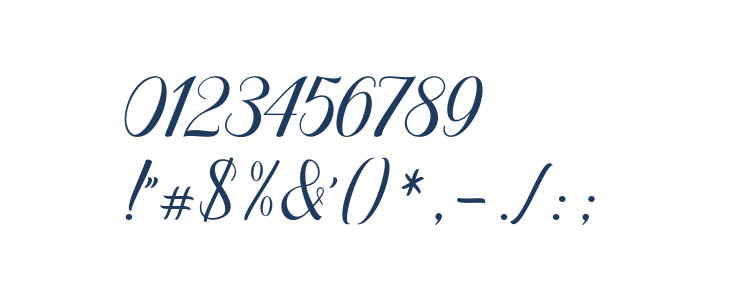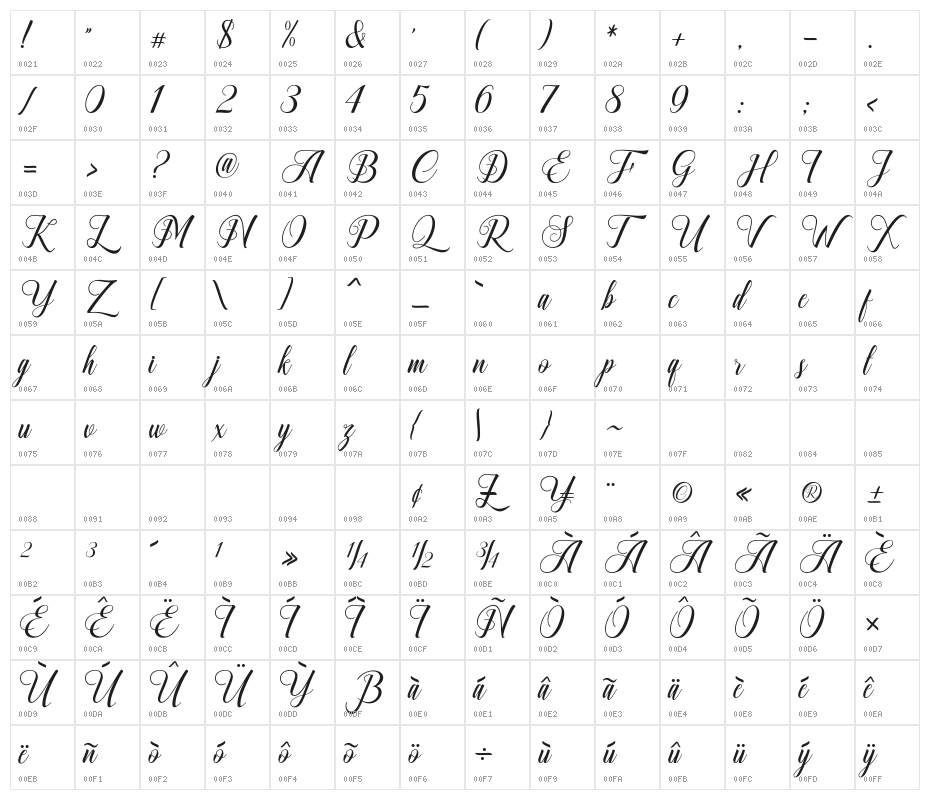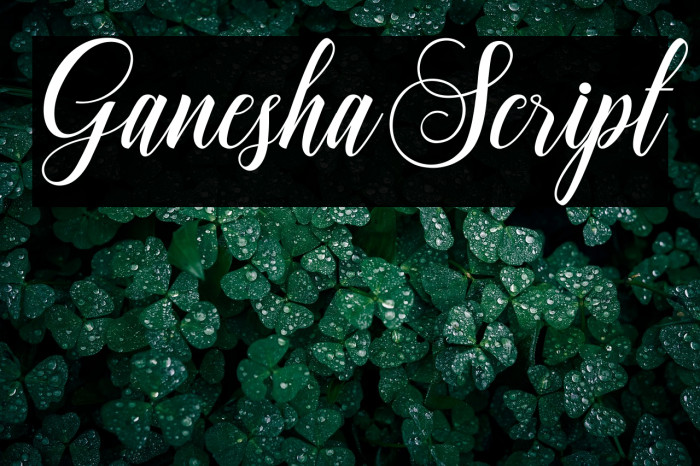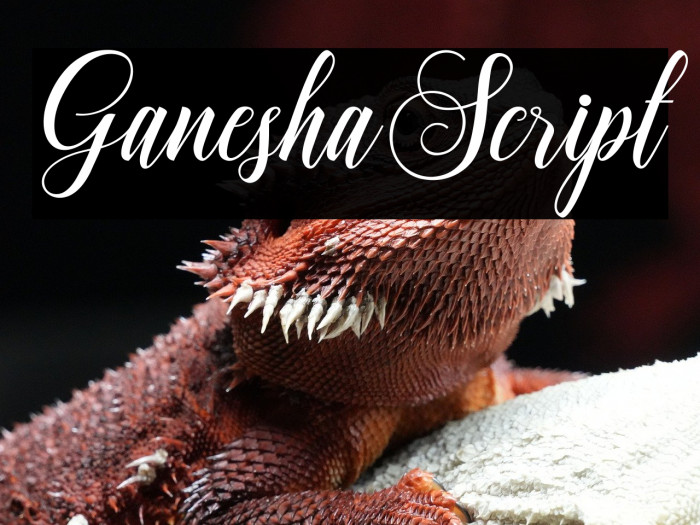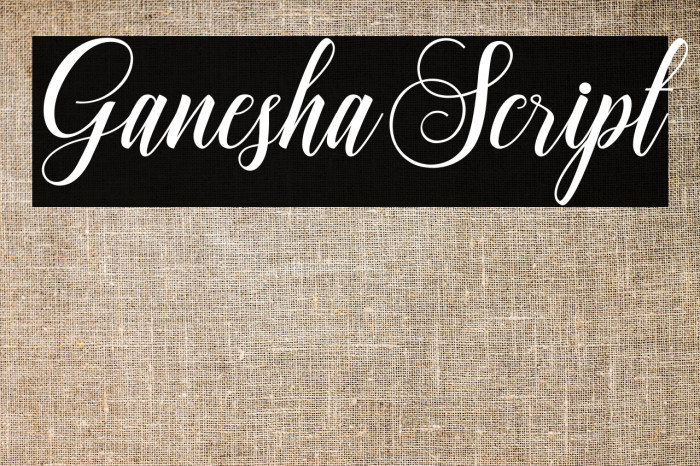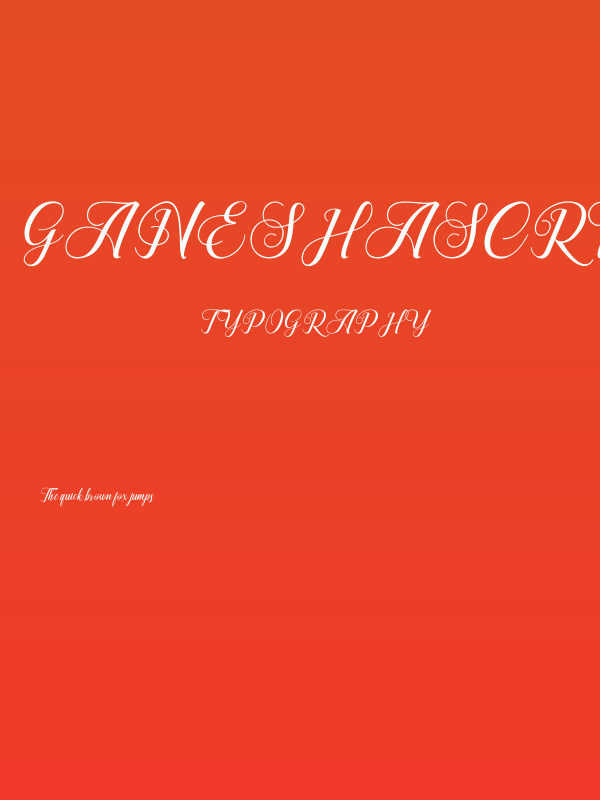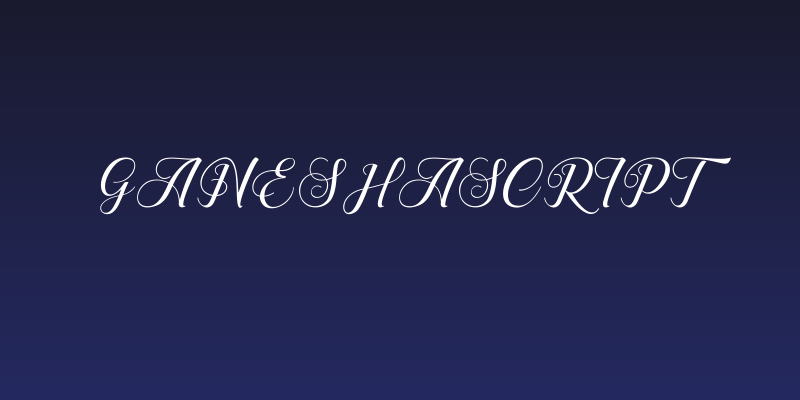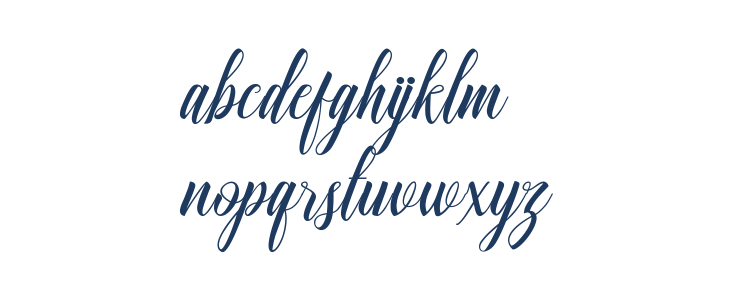
GaneshaScript Font
GaneshaScript Description
This elegant script font features a flowing, cursive style with graceful, sweeping curves and a sophisticated appearance. The uppercase letters are ornate and decorative, while the lowercase letters maintain a smooth, connected flow, making it ideal for formal invitations or branding that requires a touch of elegance. The numerals are stylishly integrated with the overall script design, and the special characters are crafted with the same attention to detail, ensuring consistency throughout. The font's high contrast between thick and thin strokes adds to its refined and polished look, making it suitable for projects that demand a luxurious and classic feel.
Proposed ProjectsIdeal for wedding invitations, luxury branding, elegant logos, and formal event materials.